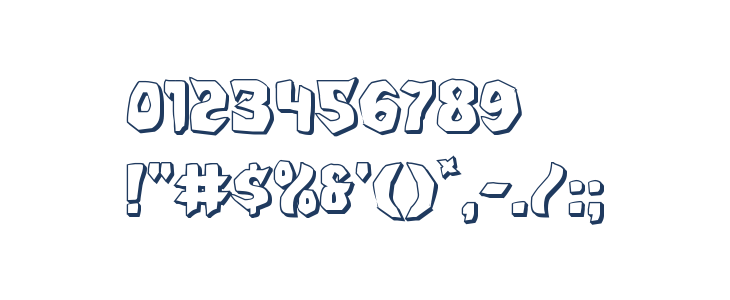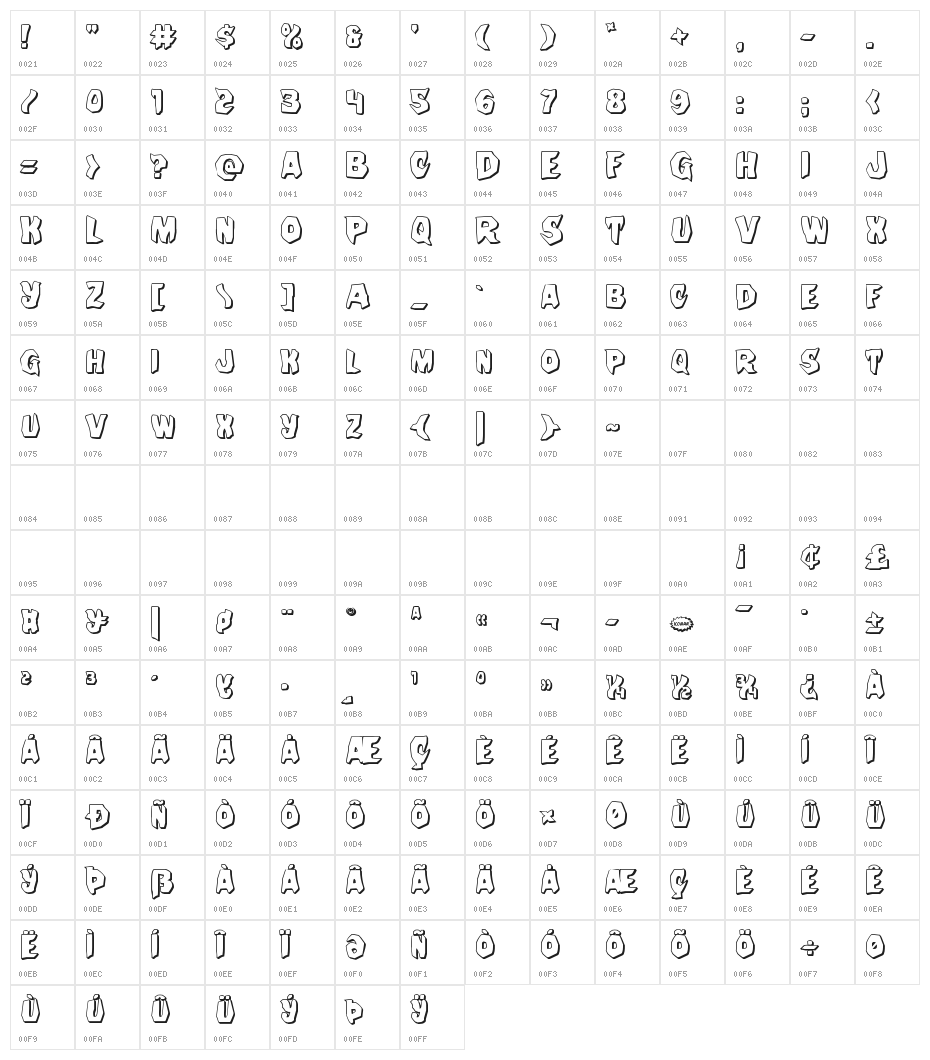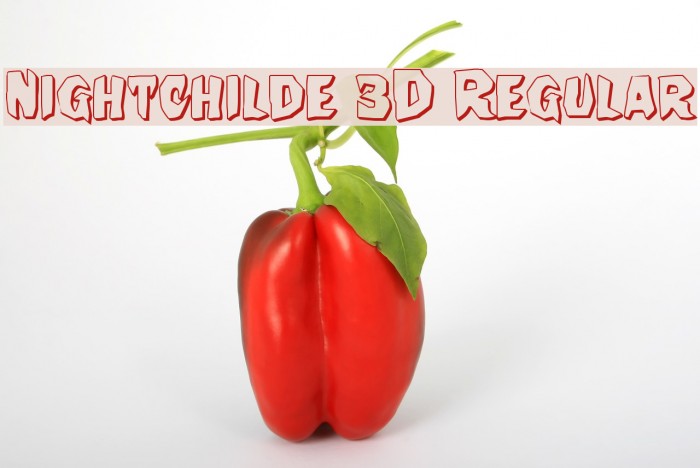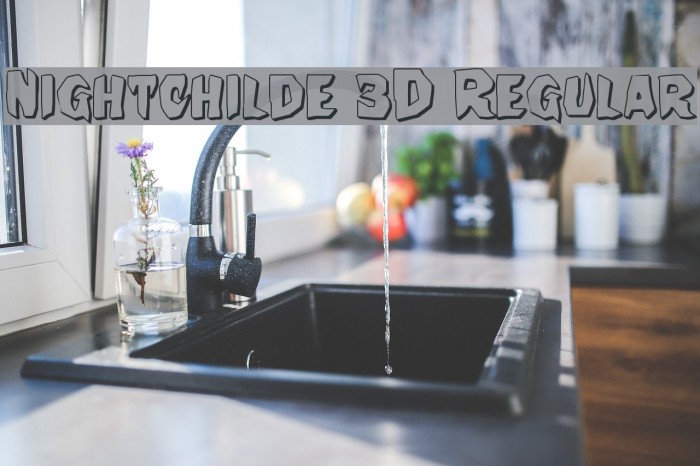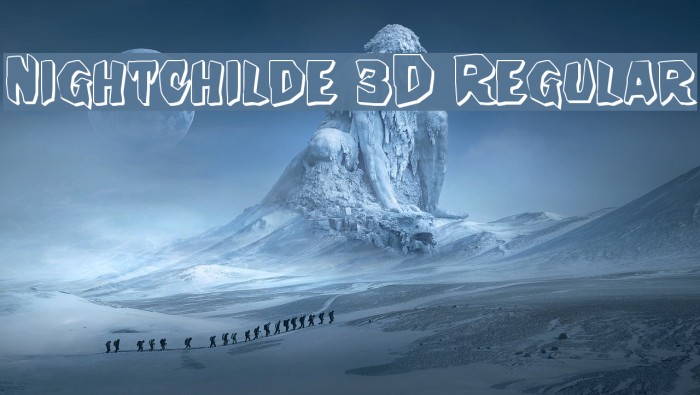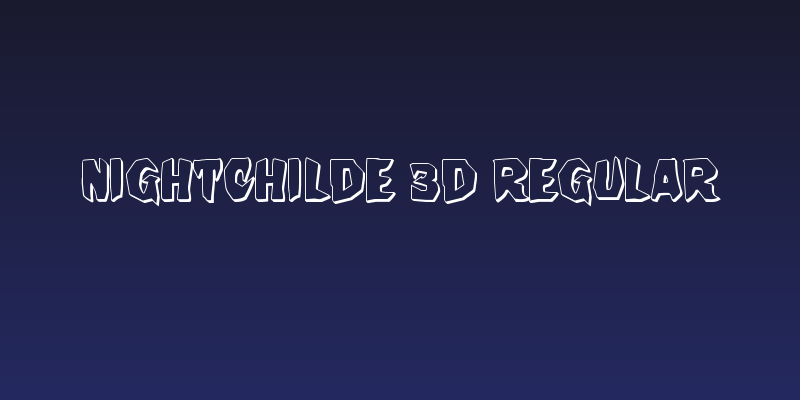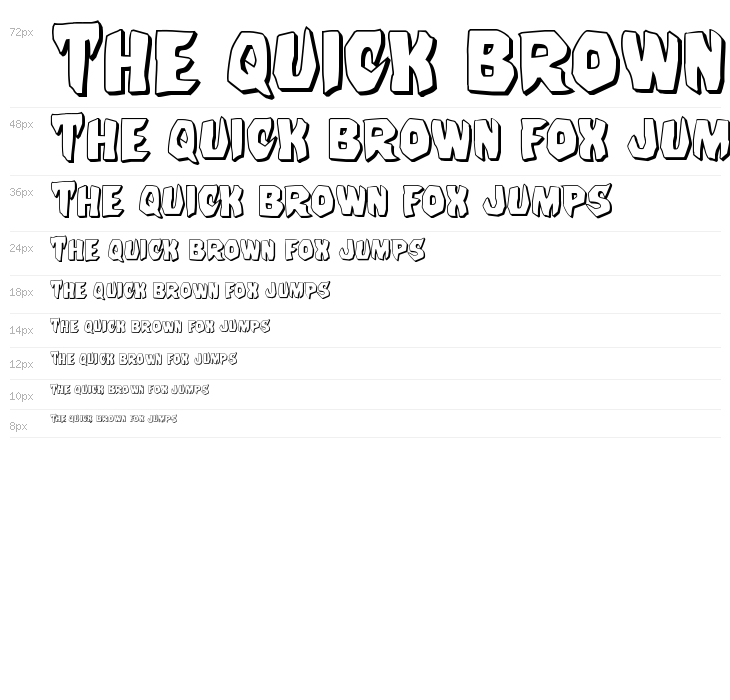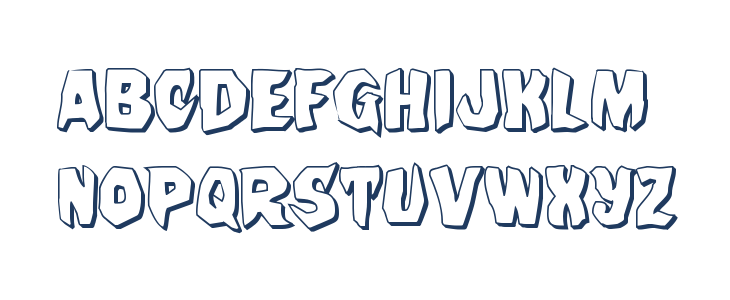
Nightchilde 3D Regular Font
Nightchilde 3D Regular Description
This font features a bold, three-dimensional appearance with a playful and dynamic style. The letters are outlined with a thick black border, giving them a cartoonish and impactful look. Each character appears to be slightly tilted or skewed, adding to the energetic and lively feel. The font maintains consistent thickness throughout, ensuring readability while still offering a unique visual flair. The exaggerated 3D effect makes it stand out, making it suitable for eye-catching designs.
Proposed ProjectsIdeal for comic books, children's posters, video game titles, and playful branding.